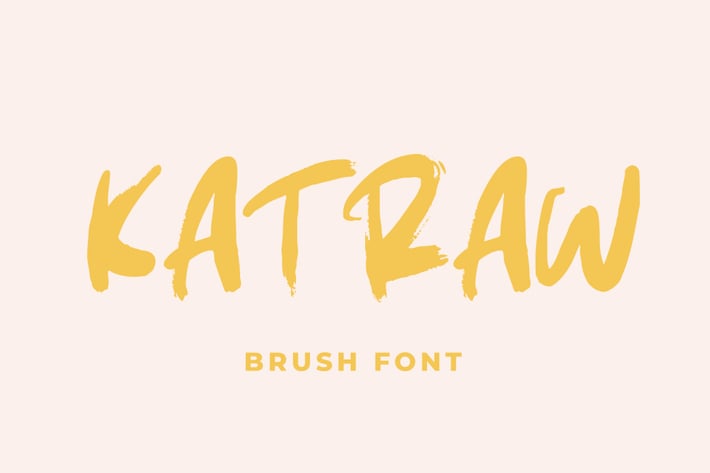
Katraw - Brush Font
Introducing Katraw. A brush font with organic textures and natural charm. Perfect for branding, logos, quotes, and more, its unique brush strokes add depth to your designs.
Experience the authentic feel of Katraw as it infuses your projects with organic flair. Embrace its natural allure and elevate your branding with a touch of authenticity.
Features: Uppercase, Lowercase, Numeral, Punctuation & Multilingual.